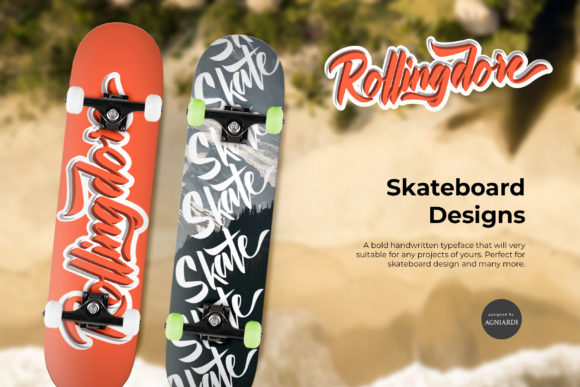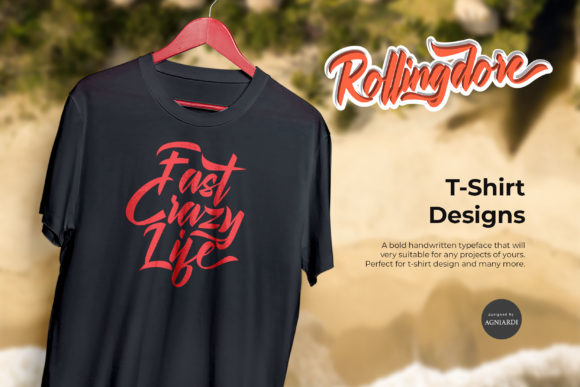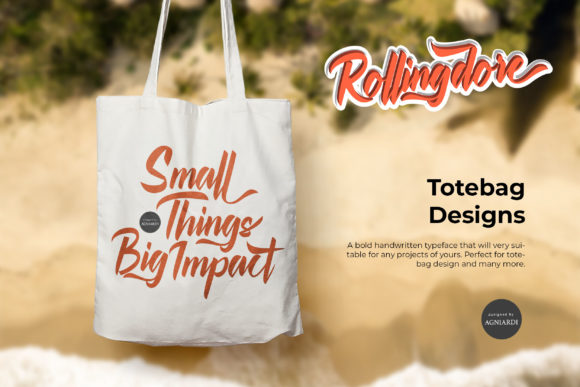
Introduction to Rollingdore Font
Have you ever stared at a blank page, struggling to find the perfect font to bring your creative project to life? We’ve all been there – the cursor blinks, and our minds go blank. But what if we told you that there’s a font that can turn that blank page into a masterpiece? Enter the Rollingdore Font, a bold and fun vintage font with a unique twist that’s sure to make your design project stand out from the crowd.
Whether you’re working on a high-quality design resource or a free download for a personal project, the Rollingdore Font is the perfect addition to any creative endeavor. Its transparent background and eye-catching design make it a valuable resource for designers looking to add a touch of personality to their work. With the Rollingdore Font, you can take your design to the next level and make it truly unforgettable.
- Features a unique, elegant design with a transparent background, allowing for versatility in creative applications
- Designed to be highly legible, even at high resolutions, making it suitable for print and digital projects
Honest Review: Rollingdore Font
I recently had the chance to work with the Rollingdore Font and I must say, it’s been a game-changer for my design projects. This font has a unique, elegant style that really elevates any creative project. The transparent background option makes it easy to integrate into any design without worrying about background clashing.
- ✨ High-quality design: The Rollingdore Font has a crisp, clean design that looks amazing on any medium, from print to digital.
However, I do have a few limitations to note ⚠️. The font doesn’t come with a complete character set, which can be a bit of a pain if you’re working on a project that requires specific characters.